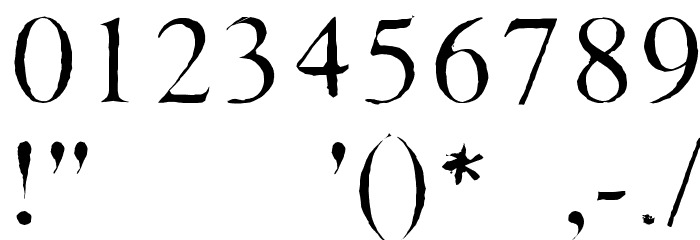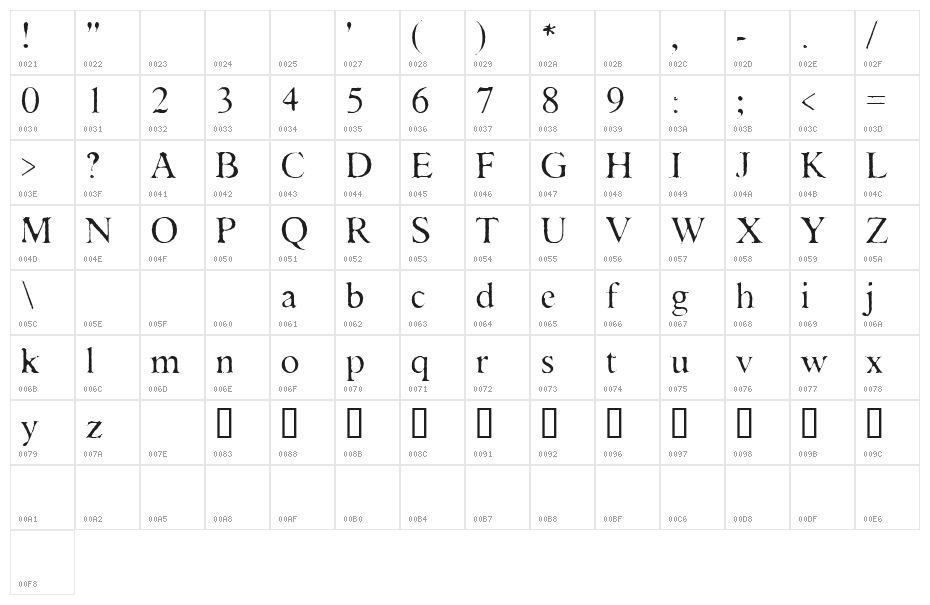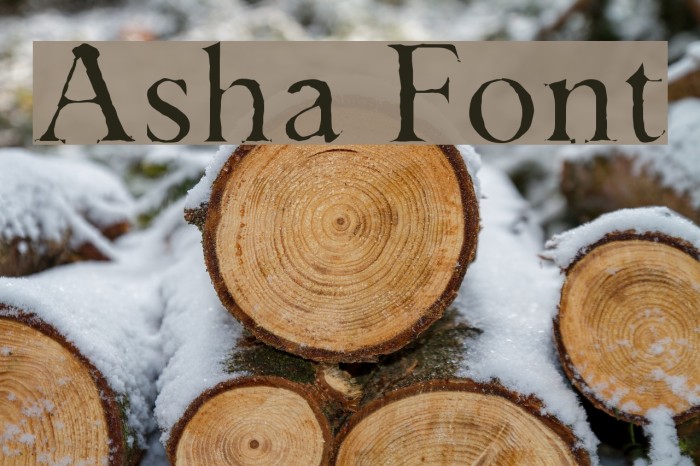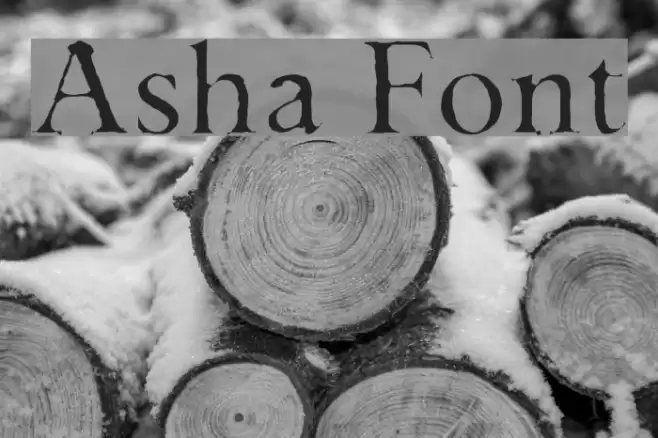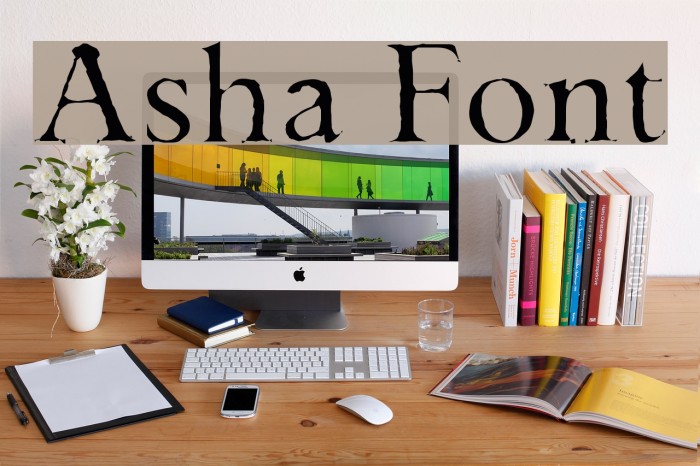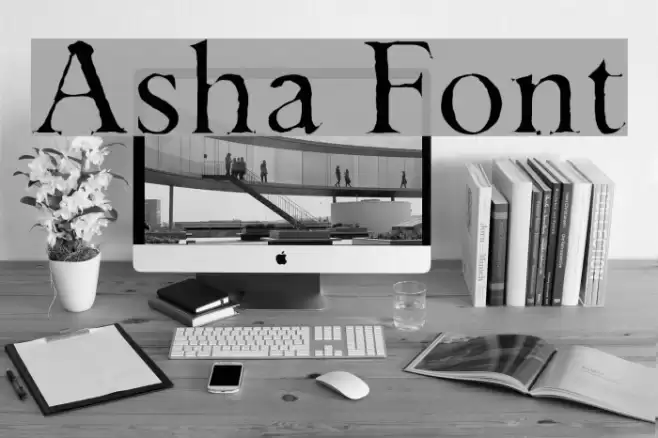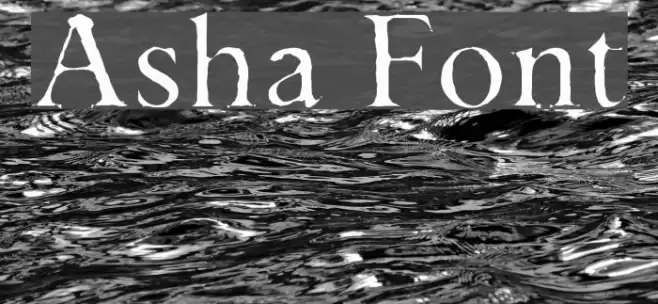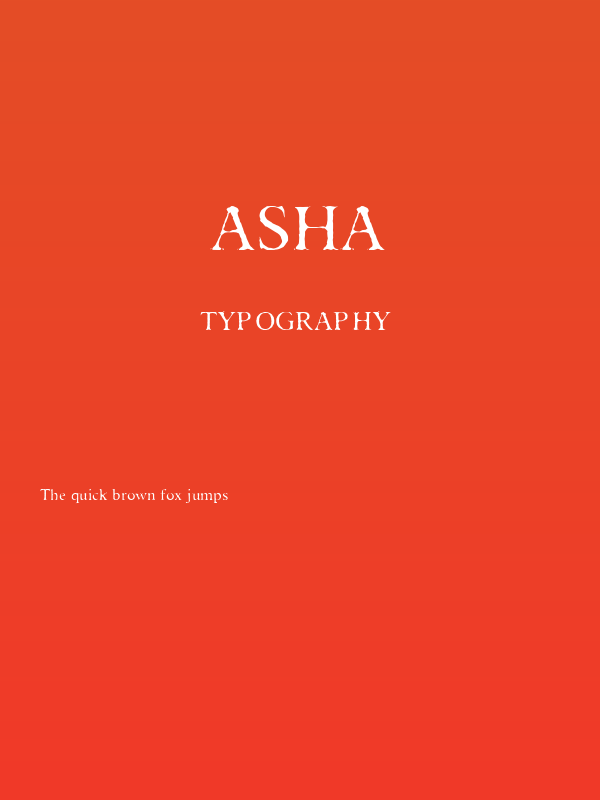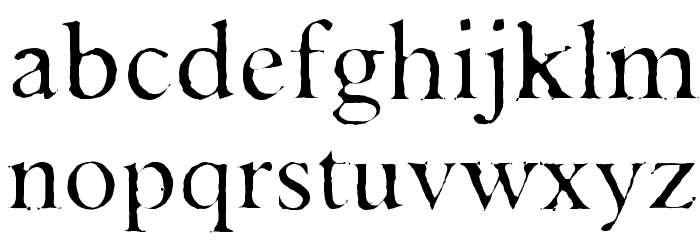
Asha Font
Asha Description
This font features a classic serif style with a distinct calligraphic influence, characterized by its elegant and slightly irregular strokes. The uppercase letters exhibit a traditional formality, while the lowercase letters maintain a fluid and organic appearance. The numerals are consistent with the overall style, offering a harmonious blend of readability and artistic flair. Special characters are designed to complement the alphabet, maintaining the same aesthetic qualities. The font's unique charm lies in its ability to convey both sophistication and a touch of historical elegance.
| Proposed Projects | Ideal for wedding invitations, historical documents, book covers, and branding that requires a touch of elegance. |